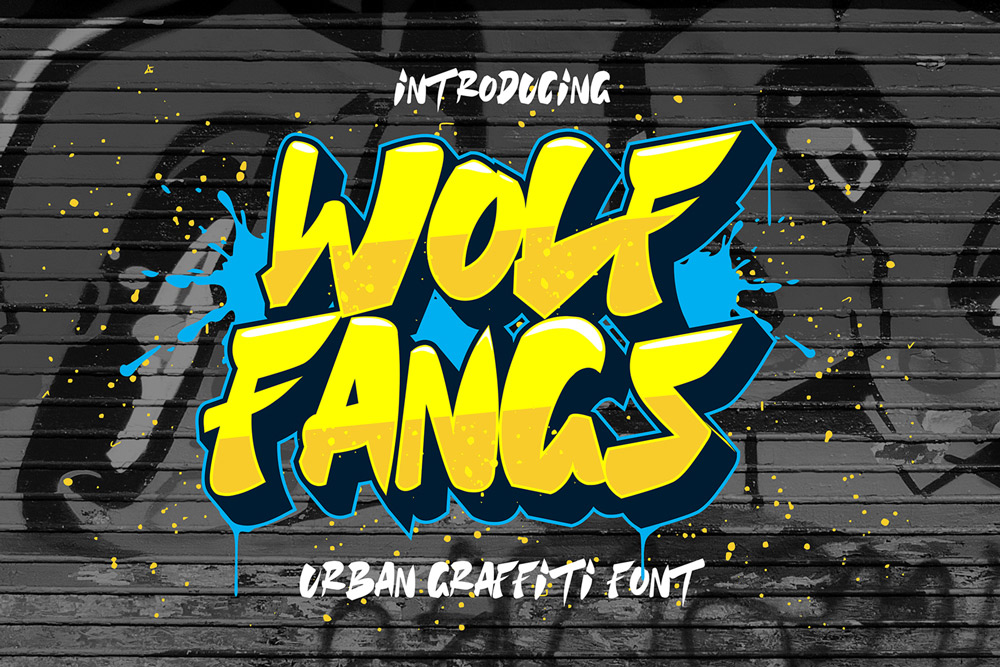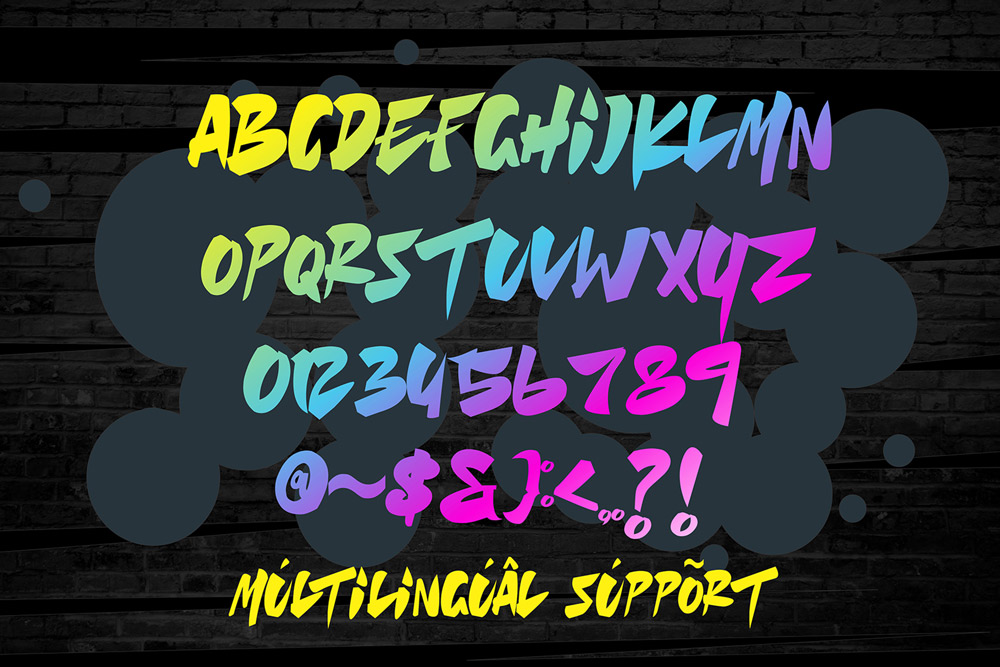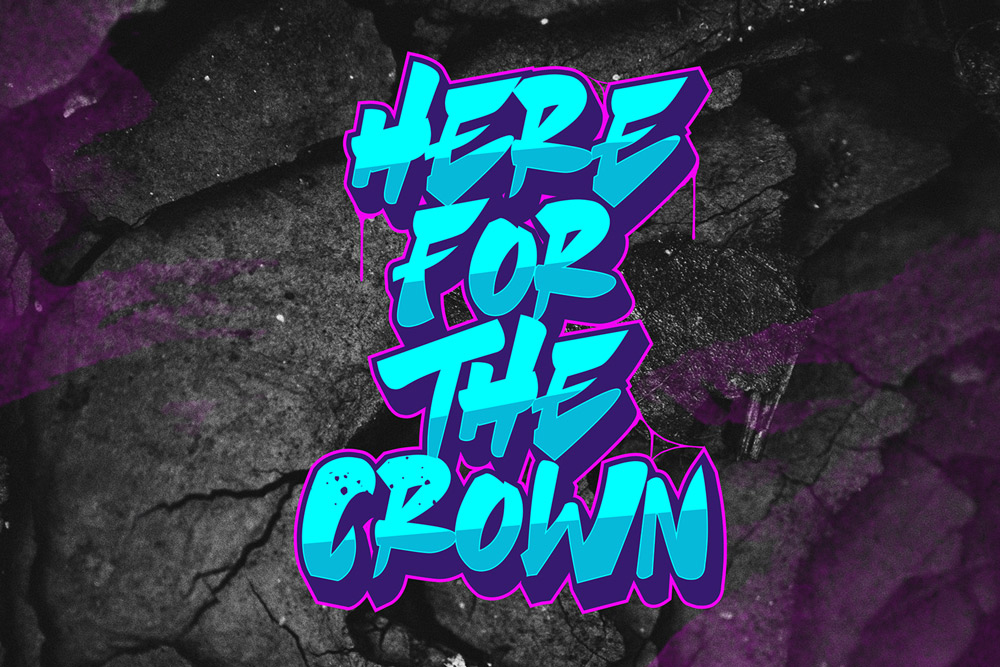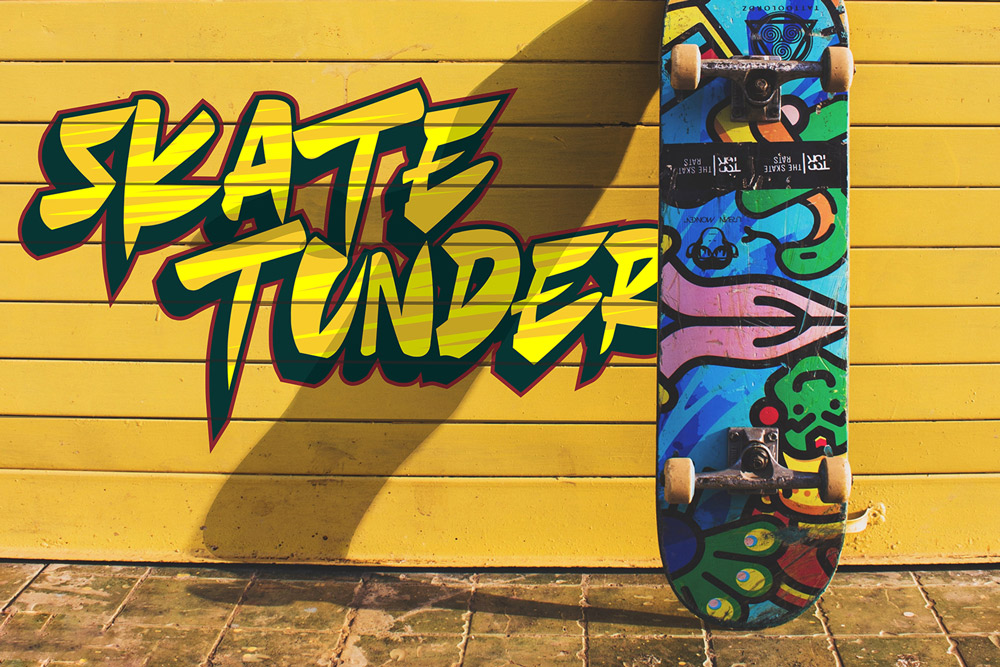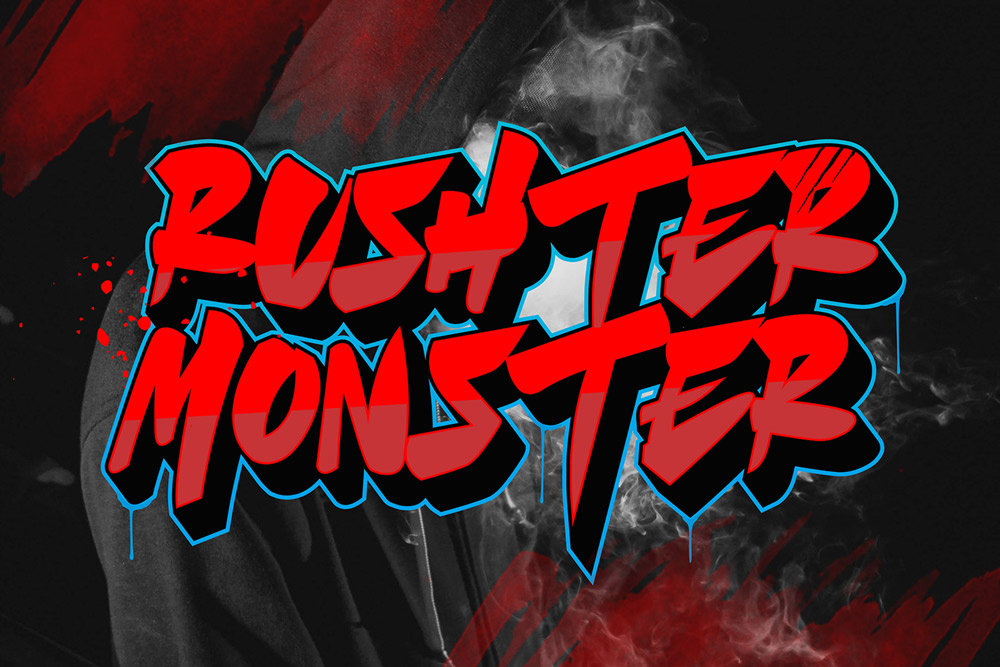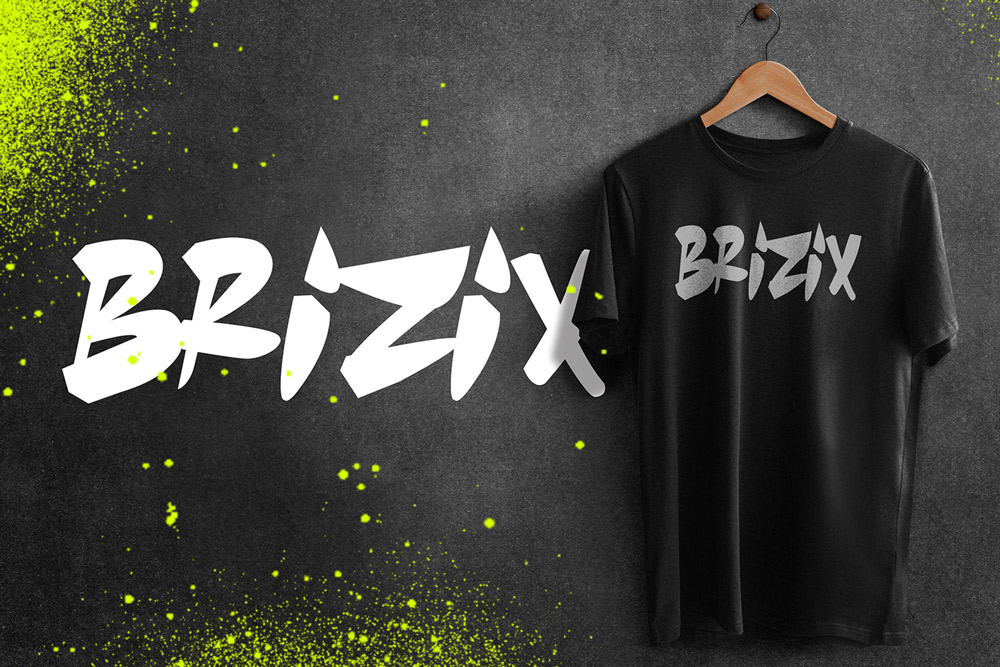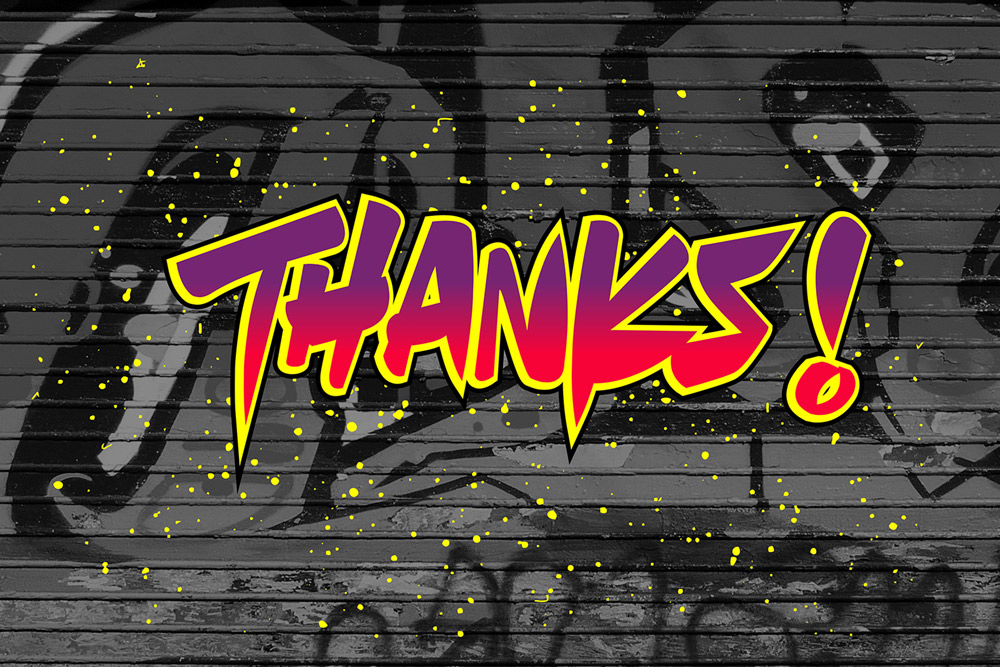
About Wolf Fangs
Wolf Fangs – Modern and Edgy Graffiti Font
Wolf Fangs is a modern graffiti font inspired by underground street culture, bold urban typography, edgy spray paint lettering, and contemporary streetwear aesthetics. Designed with aggressive character shapes and strong graffiti energy, this edgy display font delivers an authentic urban visual style perfect for modern creative projects. Whether you are creating streetwear branding, music artwork, gaming graphics, posters, or social media content, Wolf Fangs helps your typography stand out with bold street-inspired personality.
This urban graffiti font combines modern display typography with raw graffiti influences, creating a powerful visual identity that works across both digital and print media. Designers searching for a modern graffiti font with edgy details and high visual impact will appreciate the balance between readability and artistic street character. Wolf Fangs is built to attract attention instantly, making it an excellent choice for creators who want bold typography that dominates the composition.
The edgy graffiti style of Wolf Fangs makes it suitable for streetwear labels, esports branding, hip hop album covers, skate culture graphics, YouTube thumbnails, urban posters, and fashion campaigns. Every letterform is carefully crafted to deliver strong visual energy while maintaining professional typography quality. This modern street font is designed to help creators build memorable branding with authentic urban vibes.
Modern Graffiti Font Style
Wolf Fangs features bold graffiti-inspired letterforms influenced by street art culture, spray paint lettering, urban tags, and underground visual aesthetics. The edgy structure creates a strong display typography style perfect for modern branding.
Uppercase Characters
This graffiti display font includes complete uppercase characters designed with aggressive urban details and modern street personality.
Multilingual Support
Wolf Fangs supports multilingual characters, making it suitable for international branding projects, posters, merchandise, and global creative campaigns.
Number and Punctuation
This modern graffiti font includes complete numbers and punctuation marks for versatile typography compositions across print and digital media.
Why Designers Love Wolf Fangs
Strong Urban Street Aesthetic
Designers love Wolf Fangs because it captures authentic street culture energy while maintaining modern typography clarity. The edgy graffiti details instantly create bold visual impact.
Perfect for Streetwear Branding
Wolf Fangs works exceptionally well for clothing brands, sneaker campaigns, skateboard graphics, and urban apparel collections. The bold graffiti style helps brands connect with youthful street culture audiences.
Great for Music and Gaming Projects
This modern graffiti font is ideal for hip hop album covers, rap posters, gaming logos, esports branding, Twitch banners, and YouTube thumbnails. Its aggressive urban character creates energetic visual compositions.
Excellent for Social Media Graphics
Content creators and digital marketers use Wolf Fangs to create viral social media posts, bold promotional graphics, and attention-grabbing typography content for modern audiences.Easy to Use for Creative Projects
Despite its edgy graffiti appearance, Wolf Fangs maintains excellent readability and usability for posters, logos, merchandise, branding systems, and advertising campaigns.
Perfect For
Wolf Fangs is perfect for:
- Streetwear branding
- Urban fashion campaigns
- Graffiti logo design
- Hip hop posters
- Rap album covers
- Gaming typography
- Esports branding
- YouTube thumbnails
- Social media graphics
- Skateboard artwork
- Urban merchandise
- Promotional posters
- Digital advertising
- Music event flyers
- Creative typography projects
- Youth branding campaigns
- Modern apparel graphics
- Underground culture visuals
Modern Graffiti Typography for Urban Branding
Urban branding trends continue to grow across fashion, gaming, music, and social media industries. Bold graffiti typography has become an important visual tool for brands that want to communicate authenticity, rebellion, creativity, and youth culture energy. Wolf Fangs is designed specifically to support these modern branding needs through edgy typography and powerful street-inspired design.
The bold structure of this modern graffiti font makes headlines, logos, posters, and promotional graphics look more energetic and memorable. Brands can use Wolf Fangs to create strong visual identities that stand out in competitive digital environments. Its urban street style helps attract modern audiences who appreciate expressive and trend-driven typography.